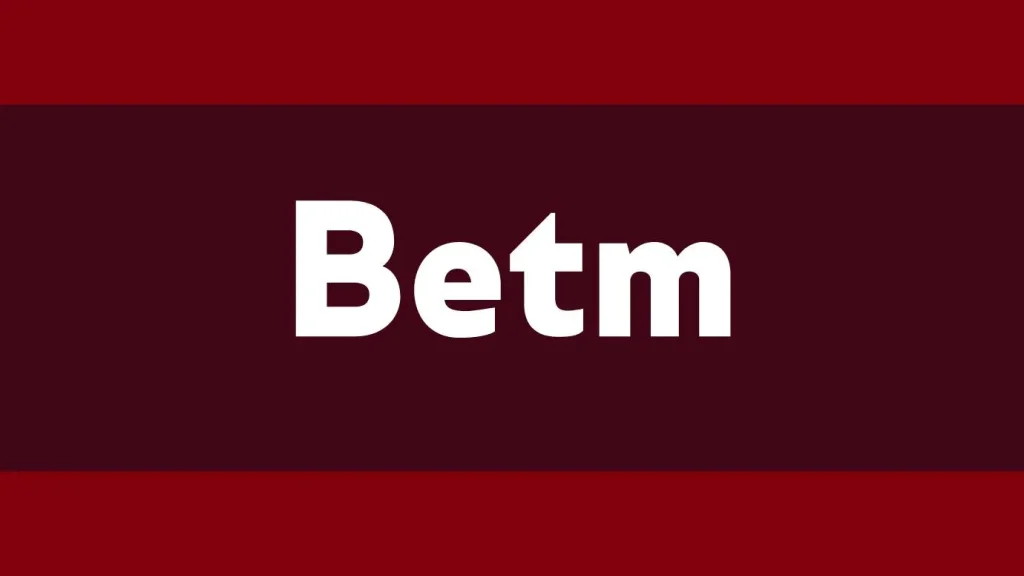
Betm Font was created by Chatnarong Jingsuphatada. There are more than 200 special and typical glyphs in this typeface, including 204 units of 01 em. The sans-serif text design has a nice and attractive style.
It works best when combined with another balanced similar font like the sans forgetica font to give your projects an amazing appearance. This style is perfect and wonderful for your design because it has so many sophisticated uses.
Uppercase and Lowercase Characters
This is a sophisticated typeface with lovely vintage styles that can give your work a classic look. You may use a variety of designs, including posters, brochures, ads, business cards, gifts, and product packaging.
The typeface can be used for assignments as well as for stylish and creative headings, titles, texts, and beautiful names. It can also be used for documentation needs, long paragraphs, and quotes.
Can I utilize the Betm Typeface for my logo design?
Yes, you can use this typeface for your logo design because it will give an exclusive and antique look to your project.
Does Betm Font have good readability?
The typeface has significant character sets and unique glyphs. This typeface is easy to read, and that’s what makes it decent.